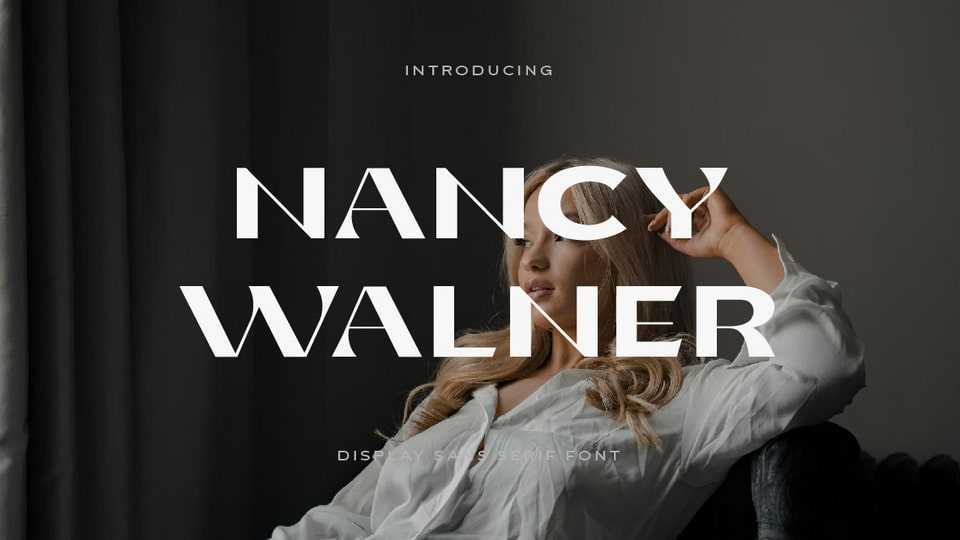
Nancy Walner Font › Fontesk – Fonte Grátis
Download Nancy Walner font, a sans serif typeface perfect for high-end design branding, cinematic videos, social media titles and other cutting-edge creations.
Designer: Yukita Creative